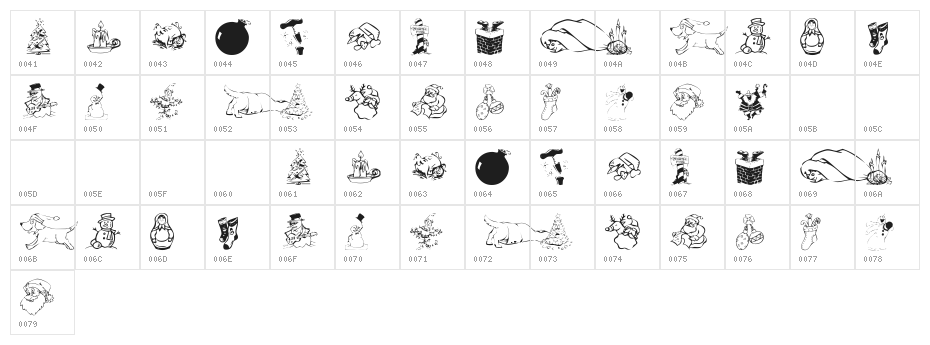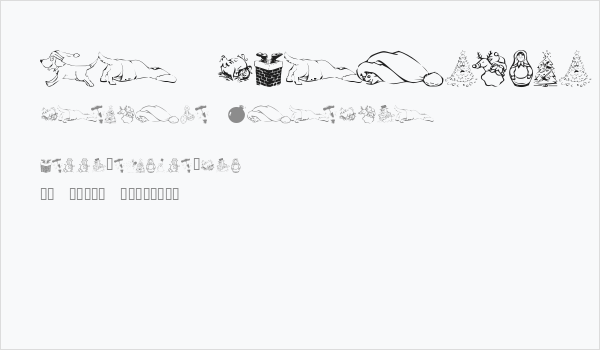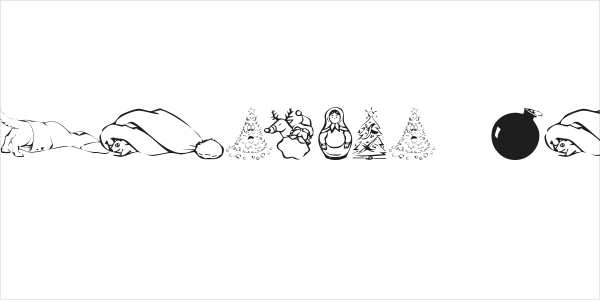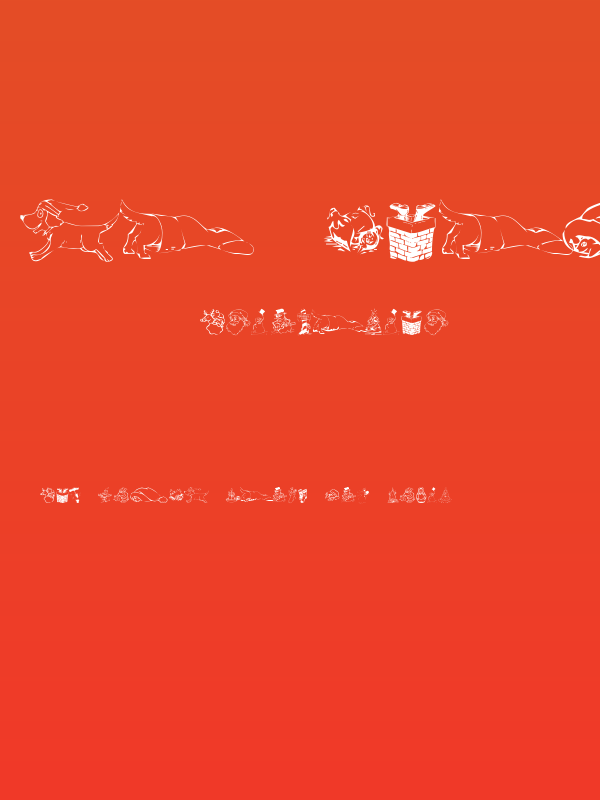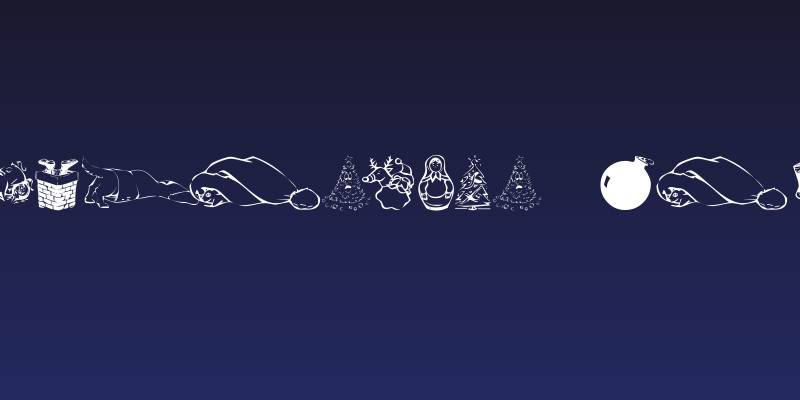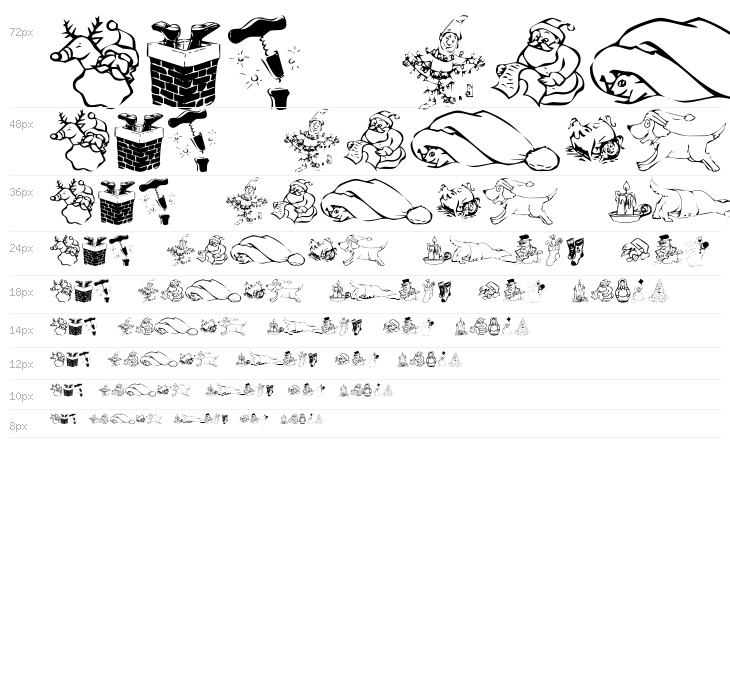
KR Christmas Dings 2004 Font
KR Christmas Dings 2004 Description
This is a decorative dingbat font featuring a variety of Christmas-themed illustrations. Each character is represented by a unique festive icon, including Christmas trees, snowmen, Santa Claus, reindeer, and other holiday motifs. The style is playful and whimsical, capturing the joyful spirit of the holiday season. The icons are detailed and varied, making them suitable for adding a festive touch to any project. The font does not include traditional alphanumeric characters but instead focuses on providing a wide range of holiday graphics.
| Use Case | Logos, Decorative elements |
| Proposed Projects | Ideal for holiday greeting cards, festive invitations, Christmas-themed posters, and seasonal decorations. |